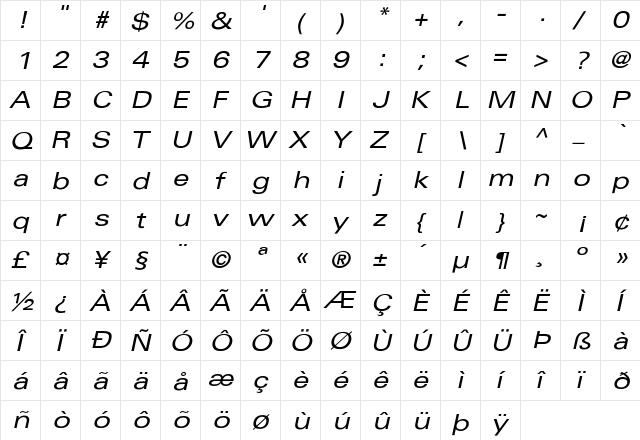
Fox-Extended-Oblique Regular
Design Context for Fox-Extended-Oblique Typeface
Fox-Extended-Oblique is a composed and adaptable typeface that performs quietly and consistently across a wide range of design contexts. The dynamic lean of this cut emphasises speed and emphasis in any layout.
Pro Tip: Try Fox-Extended-Oblique for annotation and caption copy alongside an upright companion — the contrast in angle creates a dynamic but ordered typographic system.